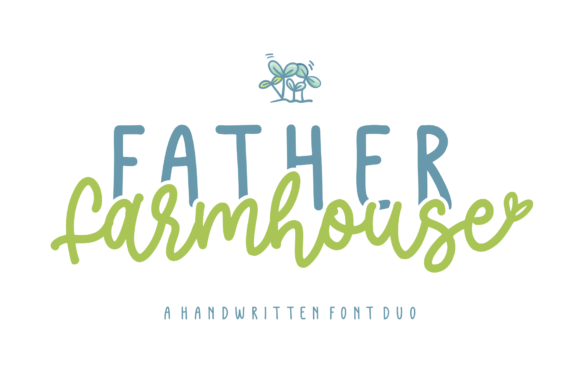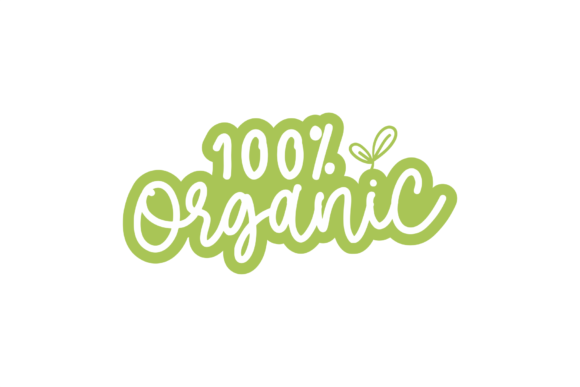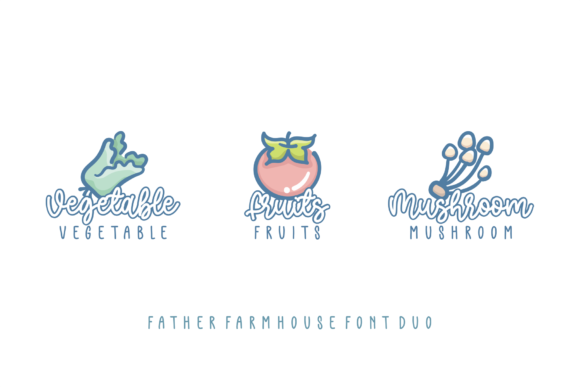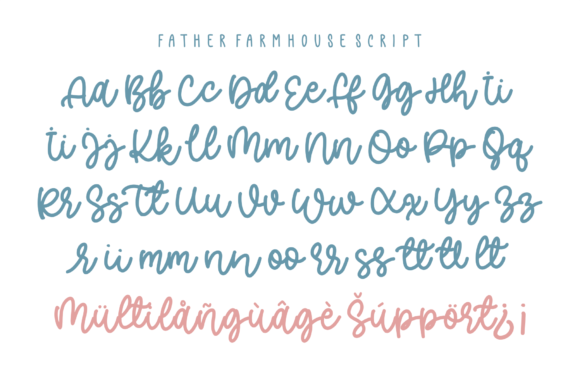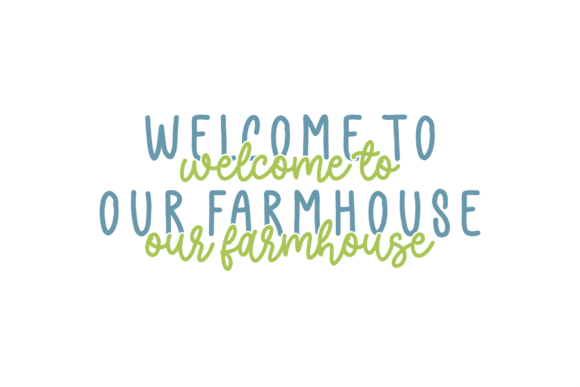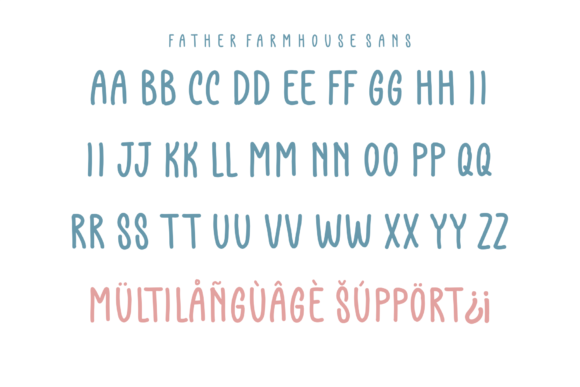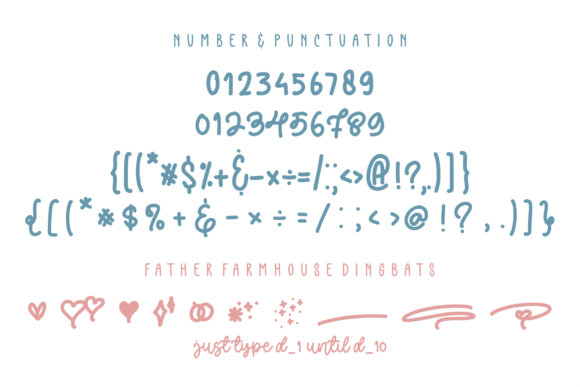
Father Farmhouse Font
About Father Farmhouse Font
Father Farmhouse is a cute duo font. This font is the perfect combination of a cute script font with a sans serif. This versatility will appeal to a wide range of crafty ideas, from letterheads and titles, to stationery. It brings cute swashes that will take your upcoming projects to the next level!